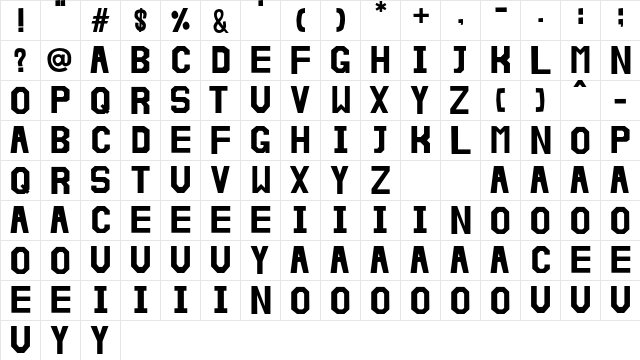
Black Lives Matter Martinez
| Foundry | Activists |
| Designer | Activists |
Design Context for Black Lives Matter Typeface
Black Lives Matter offers clean, dependable letterforms without strong stylistic allegiance, making it a practical choice for designers who need flexibility.